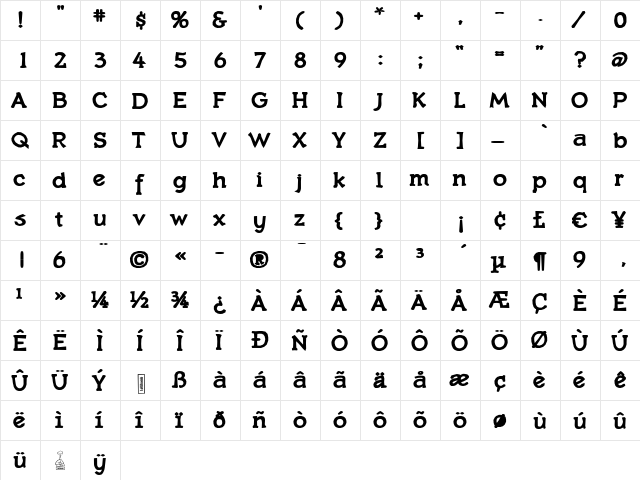
Quasxbold Regular
Design Context for Quasxbold Typeface
Quasxbold takes a measured approach to typography — its balanced proportions and neutral character make it a reliable workhorse for both digital and print work. Its bold stroke weight gives it real presence on the page.